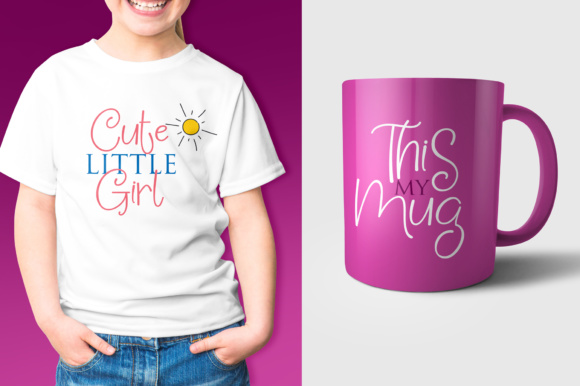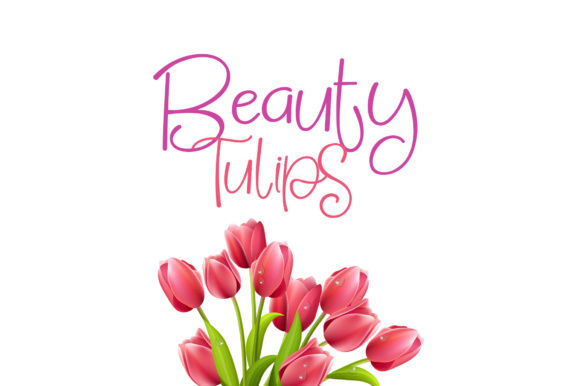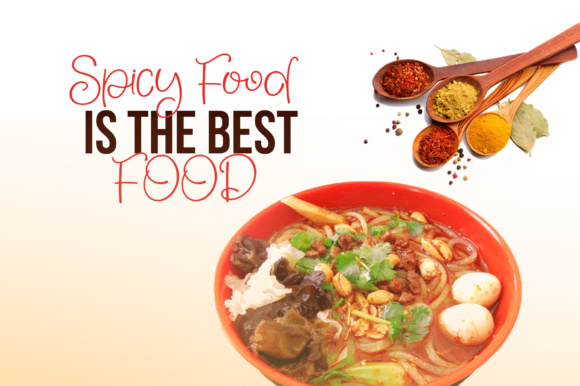
Introduction to Night in Holland Font
Have you ever stumbled upon a design that immediately sparks creativity and makes you feel like you’re ready to take on any project that comes your way? That’s exactly what happened when I discovered the Night in Holland Font. Its playful and cheerful theme has a way of getting me excited about even the most mundane design tasks.
As a designer, I know how valuable it is to have access to high-quality design resources like the Night in Holland Font. With its transparent background and regular and slant versions, this font is perfect for adding a personal touch to logos, branding, greeting cards, and so much more. Whether you’re working on a creative project or just need a little inspiration, the Night in Holland Font is sure to be a valuable addition to your design arsenal. And the best part? It’s available for free download, making it a must-have for designers of all levels.
- The unique, hand-drawn design of Night in Holland Font adds a touch of elegance and sophistication to any creative project.
- Perfect for use in designs that require a subtle, yet distinctive, visual element, such as invitations, posters, and brochures.
As a designer, I’m always on the lookout for high-quality design resources to elevate my creative projects. The Night in Holland Font has caught my attention, and I’m excited to share my honest review with you.
What works well: ✨ The Night in Holland Font is incredibly versatile and can be used for a wide range of creative projects, from branding and packaging to editorial and advertising. Its unique aesthetic is perfect for capturing the essence of a Dutch night, and the transparent background makes it easy to integrate with any design.
- ⚠️ The font may not be suitable for all types of projects, as its distinct style may clash with more conservative or traditional designs.
- ⚠️ Some users may find the font’s unique characteristics a bit overwhelming or difficult to read, especially in large blocks of text.
Overall, the Night in Holland Font is a great addition to any designer’s toolkit, offering a unique and high-quality design resource that can add depth and character to any creative project. While it may not be perfect for every project, it’s definitely worth considering for those looking to add a touch of Dutch flair to their work.
The Night in Holland Font is a free design resource that offers a high-quality, elegant font perfect for creative projects. With a transparent background, it’s ideal for use in various design platforms.